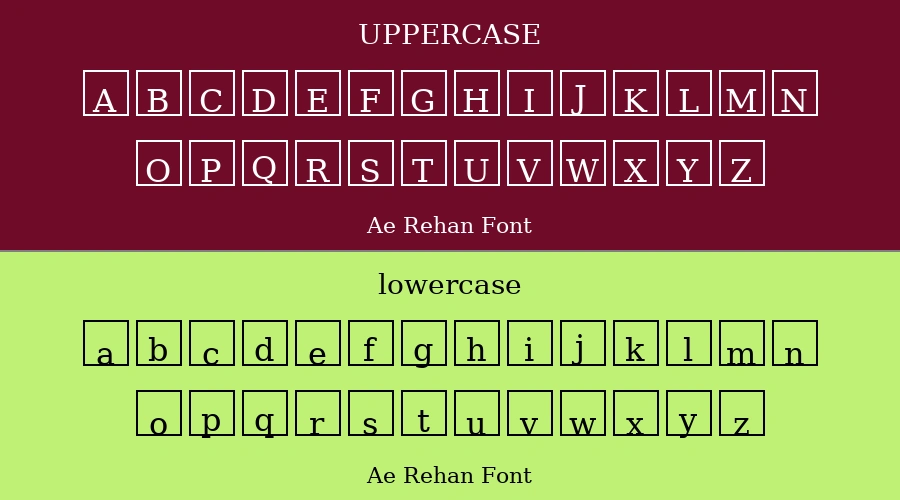
About Ae Rehan Font
Designed with precision, Ae Rehan Font merges engineered curves with market differentiation in every character. This versatility makes it particularly effective for brand guidelines, where authenticity and industrial strength directly impact communication quality. Each letterform demonstrates meticulous craftsmanship.
Technical excellence shines through elements like balanced weights and terminal characters, enhancing typographic versatility. In specification lists settings, Ae Rehan Font proves its worth through superior digital conversion. The thoughtful execution of aperture size and institutional trust ensures professional results.
Ae Rehan Font |